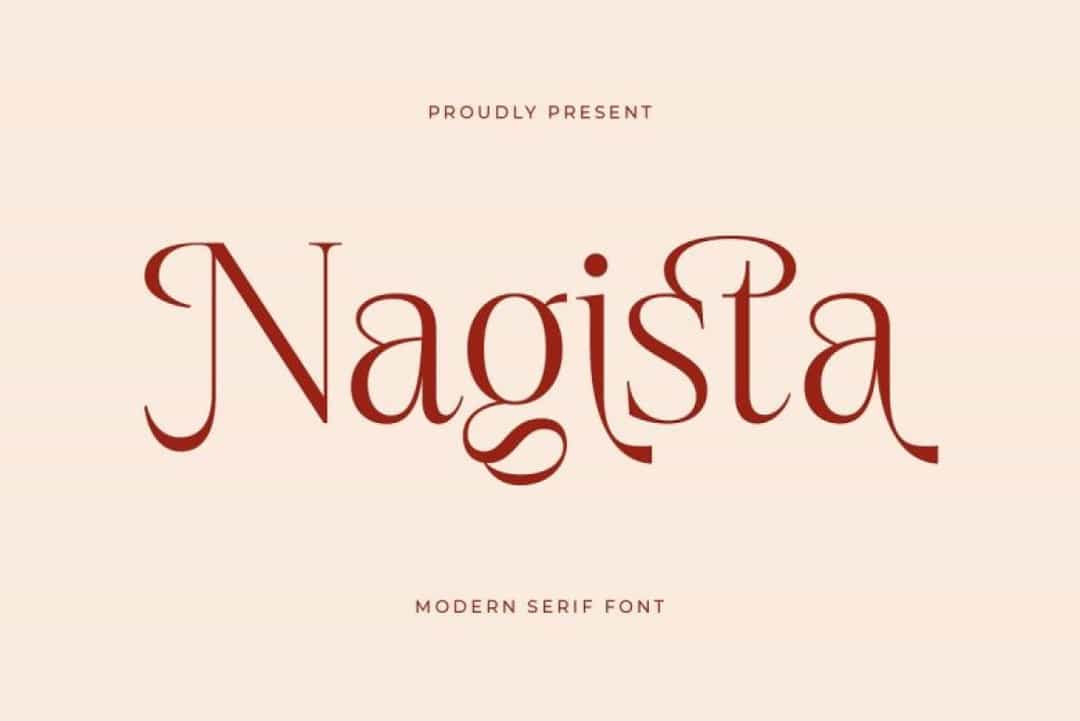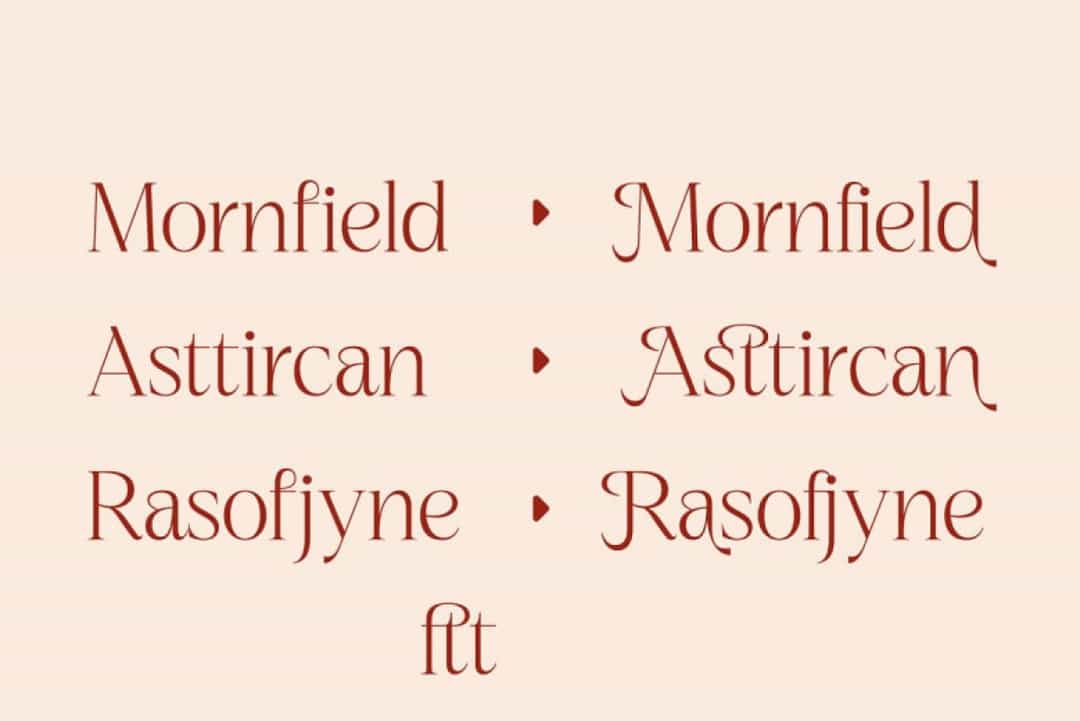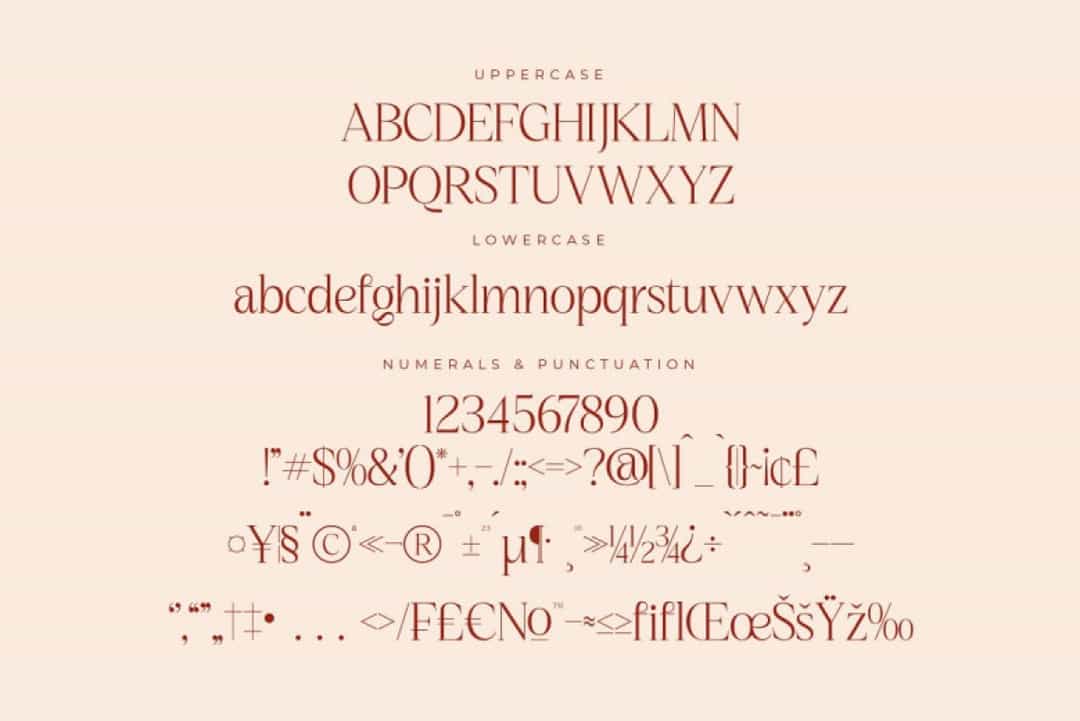
Nagista is a sophisticated serif typeface with timeless elegance and sophistication. Featuring crisp lines and well-balanced proportions, its crisp lines can be utilized both digitally and printed designs for print media designs. Add Nagista into any project from editorial layouts to branding materials for lasting elegance and awe!